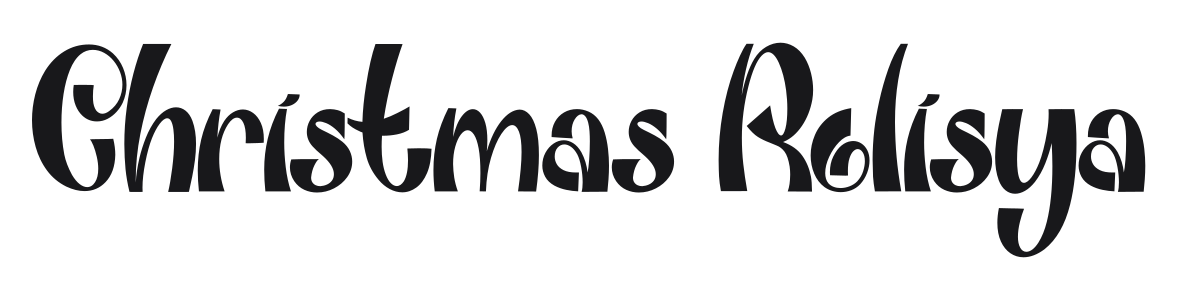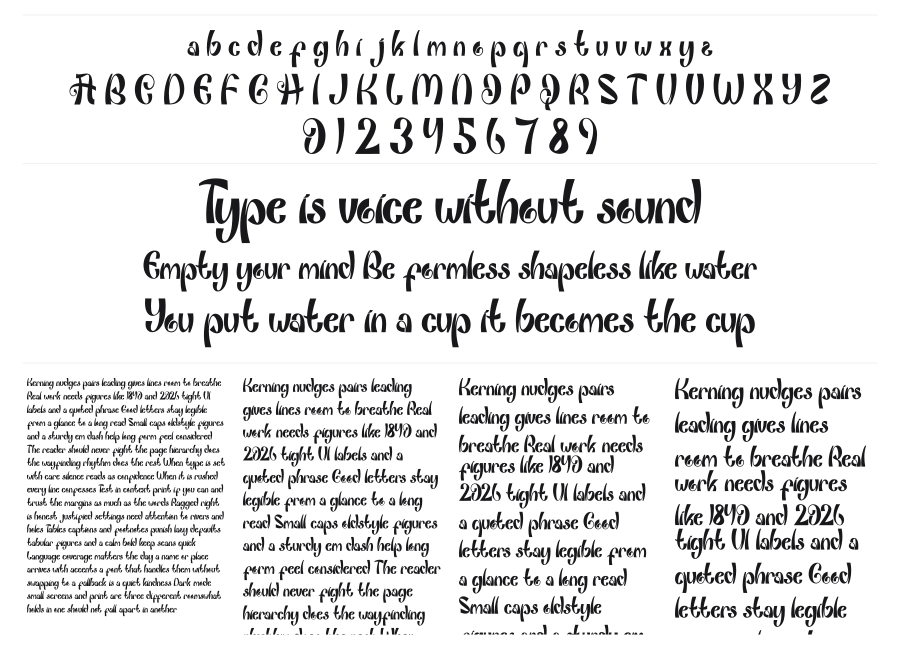
Christmas Rolisya
Christmas Rolisya is a bold casual script with sweeping curves and high stroke contrast that immediately reads as festive. The heavy downstrokes taper dramatically into hairline connectors, giving the lettering an expressive, hand-brushed energy. Strong at large sizes for holiday packaging, greeting cards, and seasonal branding.